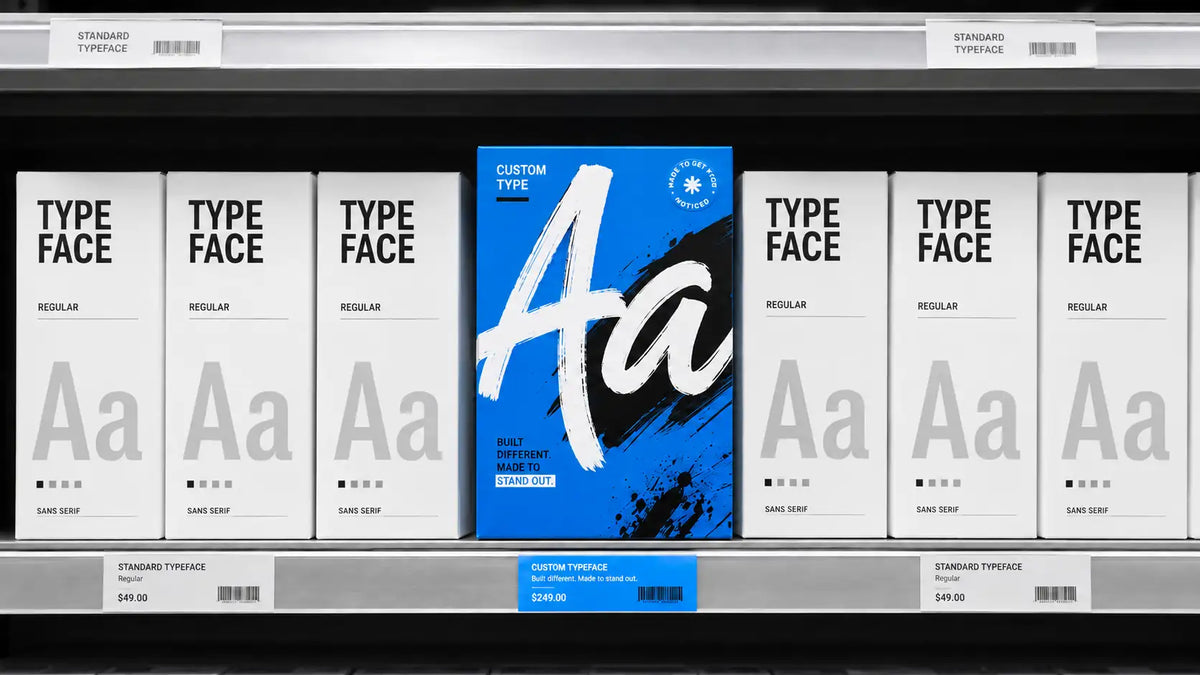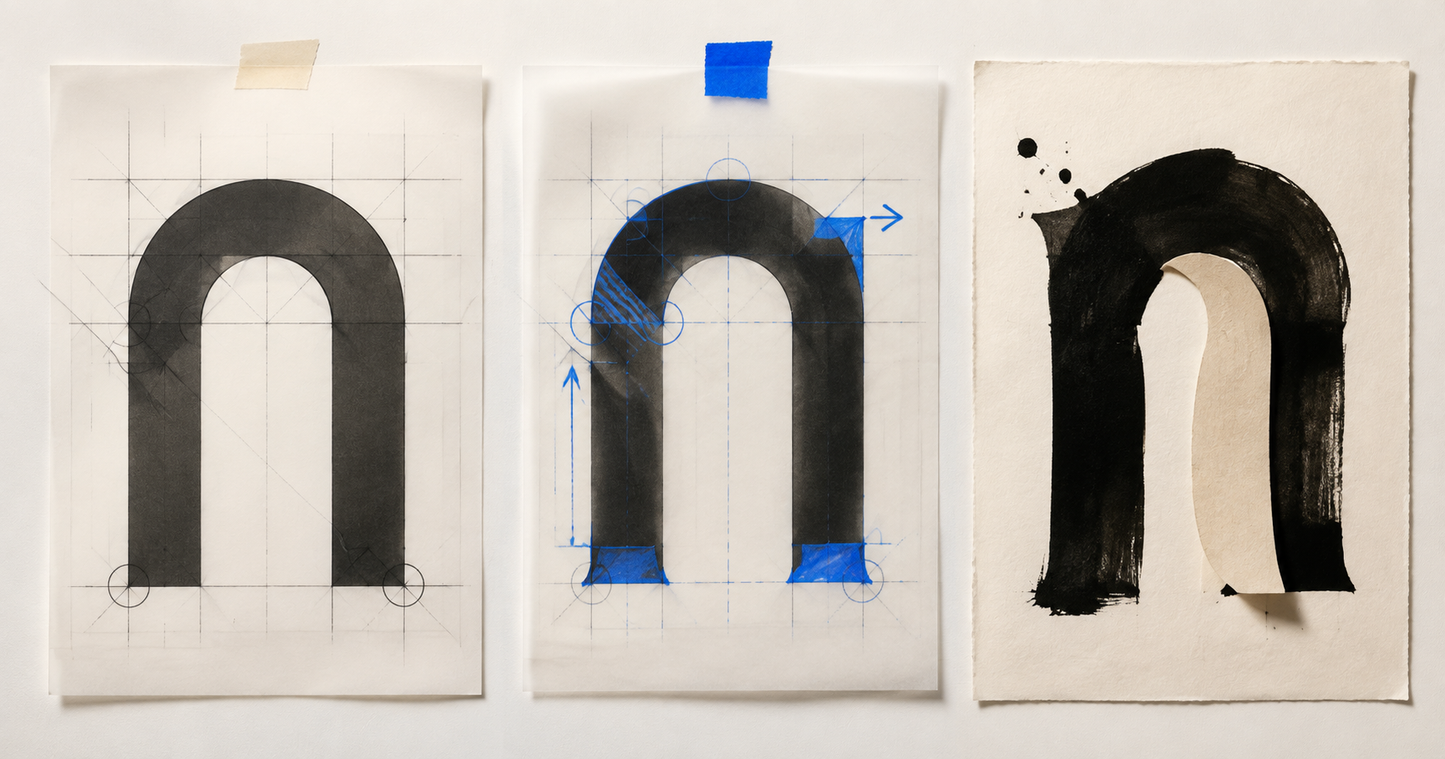
Nobody sets out to read a crisp packet. That's the difficulty with all three of these jobs — packaging, advertising and title design have to work on someone who isn't trying to look.
A custom font is a typeface drawn for one brand or one title, owned or exclusively licensed by them rather than bought off the shelf and shared with everyone else who found it. Done well, it makes a name recognisable before the logo arrives, and holds a campaign together as it moves from a six-sheet poster to a six-inch screen.
Below is roughly how I'd think it through with you, in the order the questions usually come up.
Do you actually need one?
Often not, and it's cheaper for both of us if we work that out early.
You probably don't need a custom font if you're setting one headline, running a single campaign, or working to a deadline measured in days. Licence something good and put the money into photography.
You probably do need one if:
- Your team sets new words in the brand voice regularly, without you seeing them first
- The type has to hold across a product range, multiple markets or several years
- You've been told the font you're using isn't licensed for what you're doing with it
- Everything on the shelf beside you is set in the same three typefaces
That last one is the honest reason most brands come to me. There are only so many good display faces, and your competitors have found them too.
Full typeface, or just lettering?
This is the first real fork, and it changes the cost by an order of magnitude.
Custom lettering is a fixed set of drawn words — a title, a logotype, the front of a pack. It's faster, cheaper, and you can push it further, because every letter is drawn for that exact arrangement rather than for every arrangement.
A custom typeface is a working tool your team can type with. You need it when other people have to set words you haven't seen yet.
Plenty of projects need lettering and think they need a typeface. There's no prize for drawing 300 characters nobody will use.
What packaging, advertising and entertainment each need
The brief is different in each of these, and it changes what gets drawn.
On packaging, type has to identify, persuade and inform in about the space of a postcard, then survive flavours, sizes, legal copy, promotional bursts and bad supermarket lighting. The unglamorous parts matter most: clear numerals for weights and percentages, narrow cuts for awkward panels, language coverage for every market, and behaviour on uncoated stock. A beautiful alphabet that collapses beside the ingredients list is only doing half the job.
In advertising, the point is continuity. When the typography already belongs to you, the photography and layout can change far more confidently around it. Worth checking your licence before you scale anything — a retail font licence usually won't cover a paid campaign, which is the thing that catches agencies out most often. I've written about what licence paid ads actually need.
In entertainment, A title might need menace, speed, nostalgia or glorious bad taste, and then it has to expand into episode graphics, trailers, menus, merchandise and international versions.
Questions to answer
- Where it appears, at the smallest and largest sizes it has to hold
- Whether it needs to animate
- Which languages and territories
- Fixed launch or broadcast dates
- How many people need the files
- Whether it has to work past the first campaign
Get these settled now and you avoid the classic: no euro sign, twelve hours before it ships.
How I work
I start by drawing. That might be real paint on paper, or sketching on my iPad — it depends on the job. Letterforms start to emerge, words get built from the characters to see how they look, and eventually they're redrawn in Glyphs: spaced, kerned, tweaked, checked. Tested, and then tested again.
You can see one worked example in the Reebok typeface I built to be modified.
Working with an independent designer
Large type studios are set up for global programmes: enterprise budgets, multiple scripts, multiple languages—a lot of departments. If that's your project, a larger studio might be the right call.
For a single campaign, a product range or one title, going direct to one designer is usually quicker and more flexible. Nobody translates the idea before it reaches the person drawing it, which matters more than it sounds like it should.
Common questions
How long does a custom font take?
A simple typeface — one weight, basic character set — normally takes about two weeks. A full family can take up to three months. What moves it between those two: how many languages you need, how many alternates per glyph, how many weights and styles, and whether it has to be variable. A single-weight Latin display face is a very different job from a variable family with extended language support and three alternates on every letter.
Make the words part of the idea
Nearly everything competing for the same attention uses type. Very little of it uses type that could only belong to one brand.